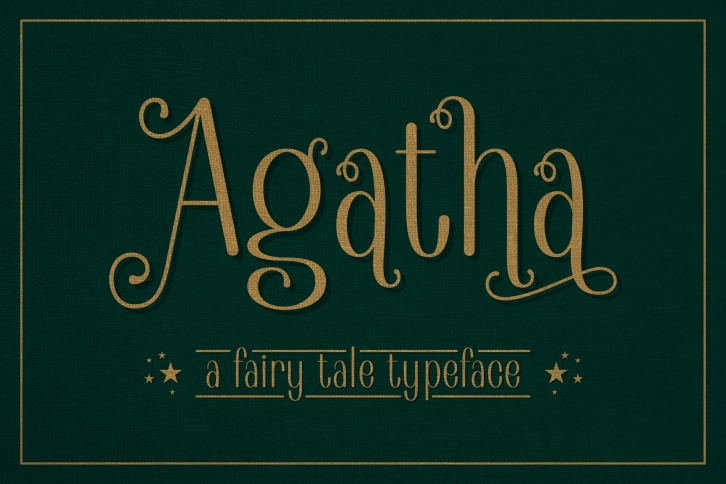
Agatha is a trendy and unique font with an authentic style. It was designed by Toko Laris Djaja and it's a great choice for creative people who need such a font. It was released on November 5, 2022 and the file size is 14.24 MB. Agatha will add an organic vibe to any design idea!